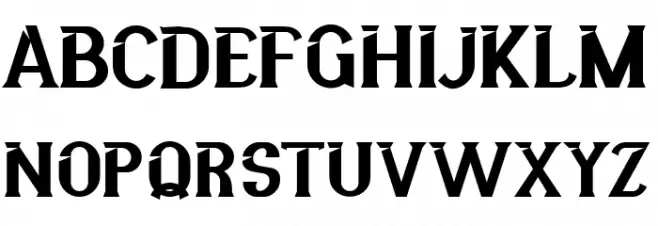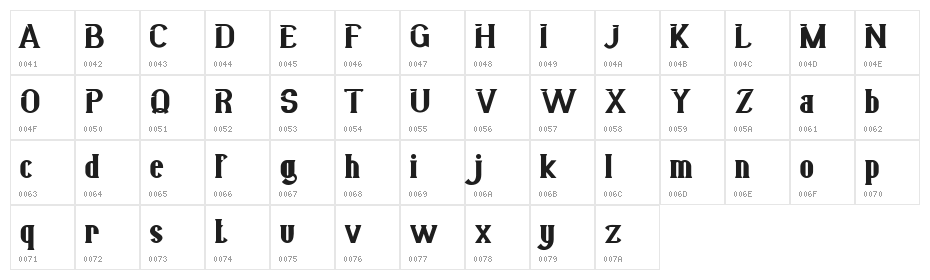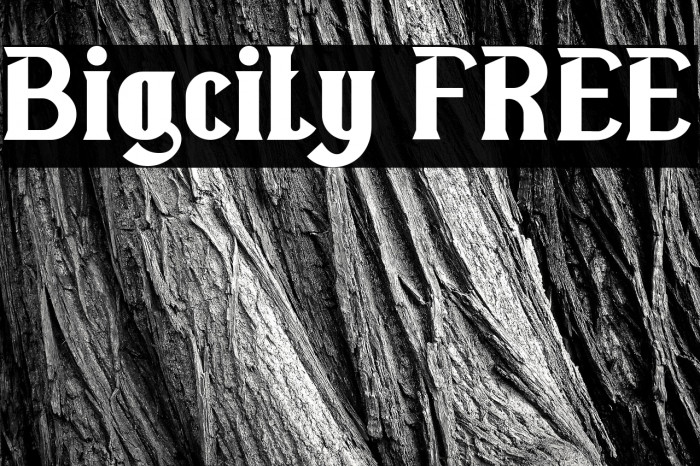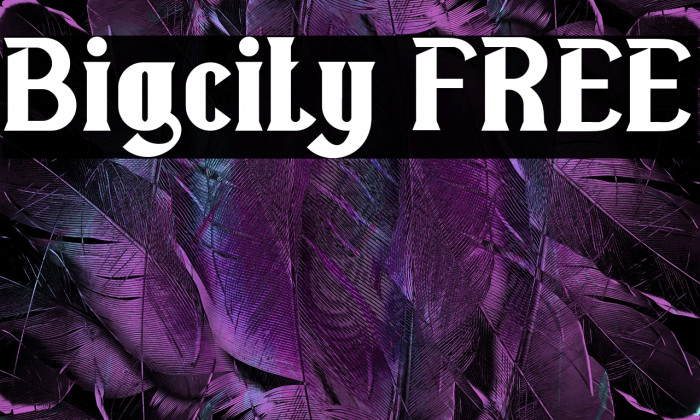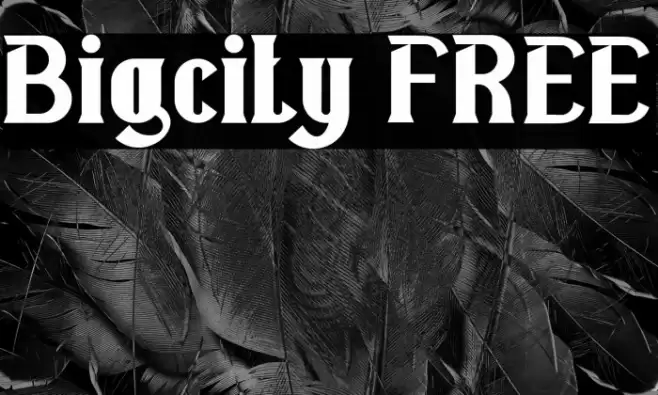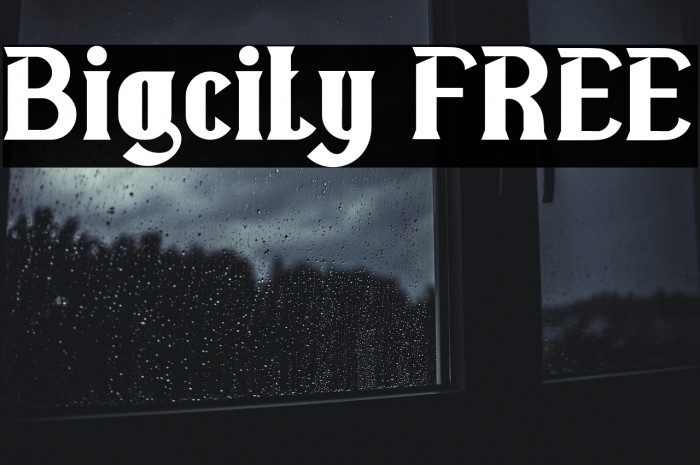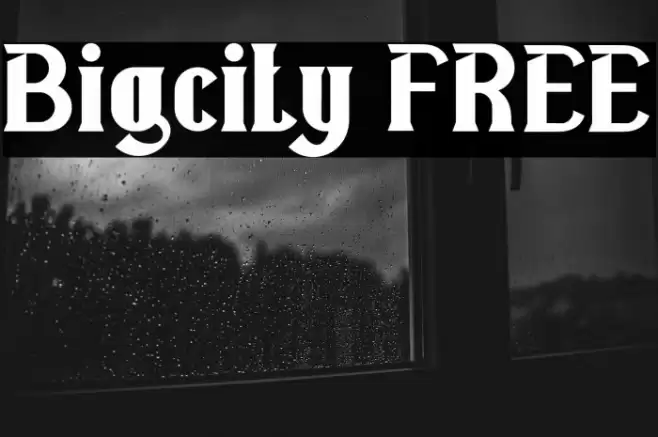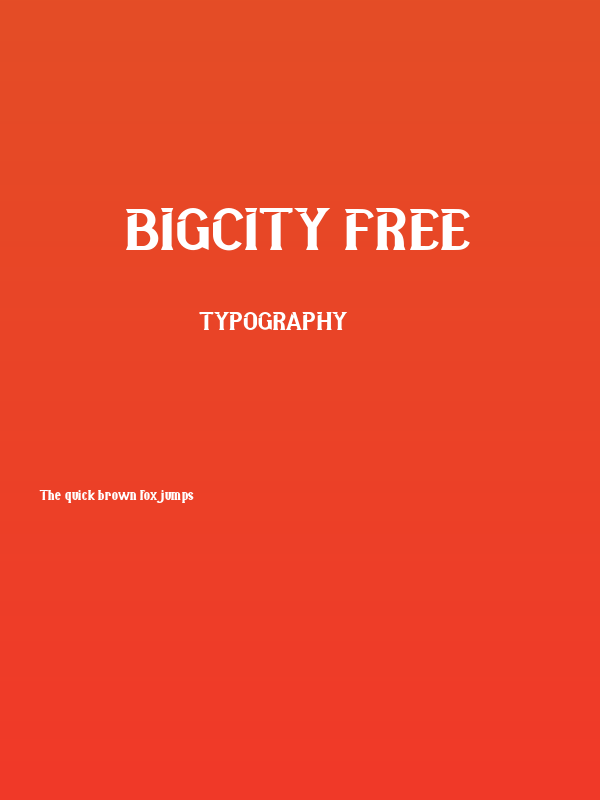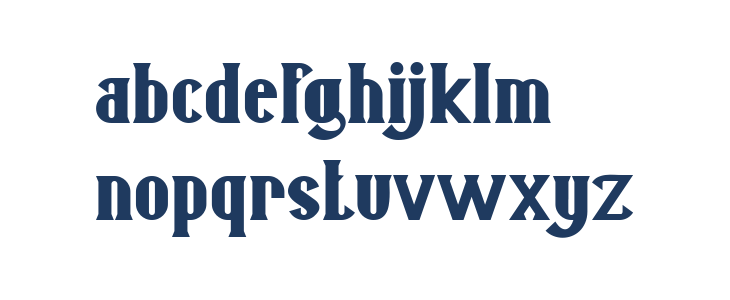
Bigcity FREE Font
Bigcity FREE Description
This font features a bold and striking design with a strong presence. The characters exhibit a blend of modern and vintage styles, characterized by sharp, angular serifs and a robust structure. The uppercase letters are particularly prominent, with a commanding appearance that draws attention. The lowercase letters maintain a consistent style, offering a harmonious balance with the uppercase set. The numerals and special characters are designed to match the overall aesthetic, ensuring a cohesive look across all text elements. This font's unique style makes it suitable for projects that require a bold and impactful visual statement.
| Overall Style | Modern Vintage |
| Proposed Projects | Ideal for branding, posters, headlines, and any design needing a strong visual impact. |